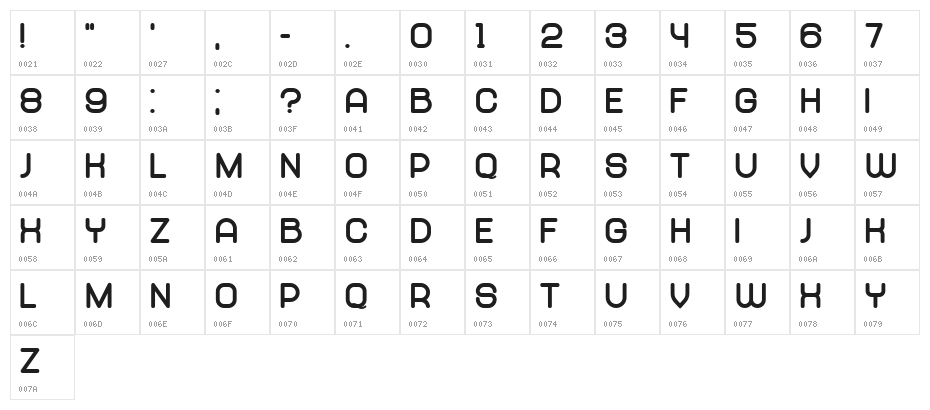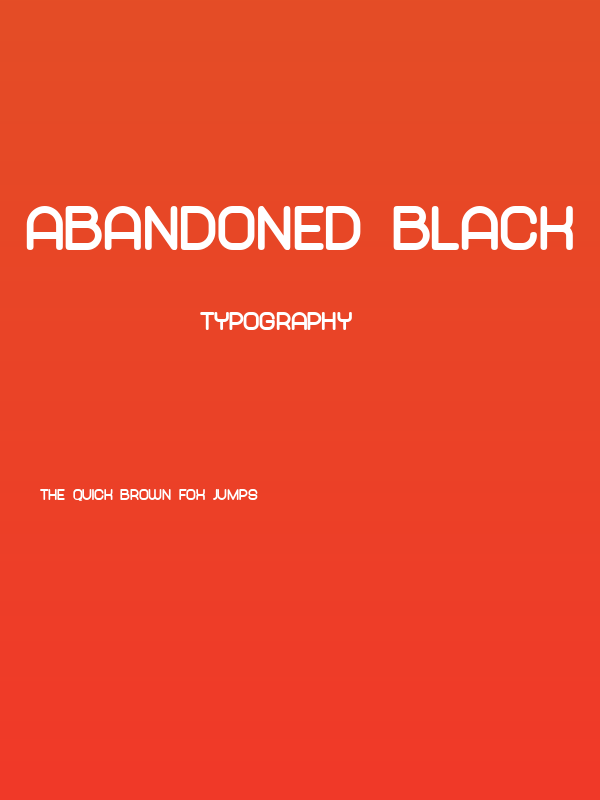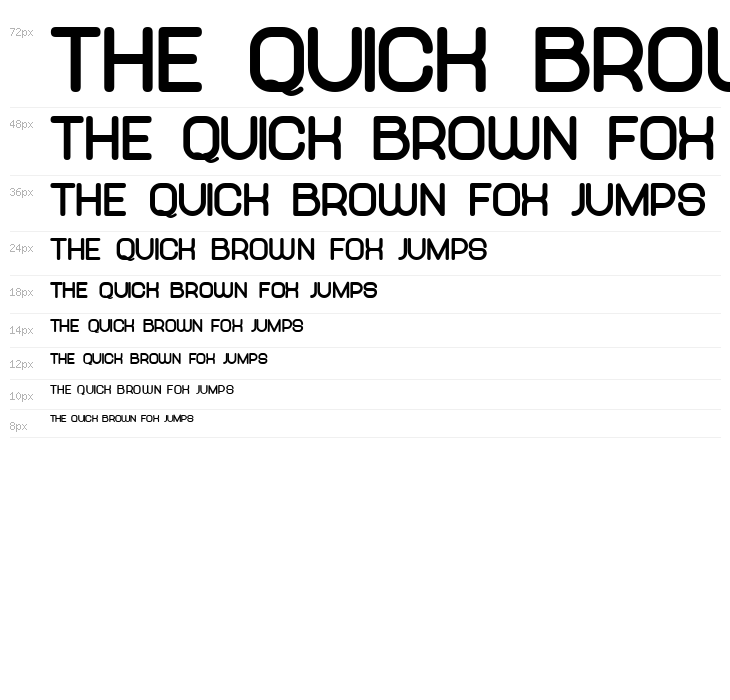
Abandoned Black Font
Abandoned Black Description
This font features a bold, rounded style with a modern and clean aesthetic. The characters are evenly spaced, providing a balanced and harmonious look. The uppercase letters are prominent and well-defined, while the lowercase letters maintain a consistent style that complements the uppercase. The numerals are clear and easy to read, making them suitable for various applications. The special characters are distinct and integrate seamlessly with the rest of the font. Overall, this font exudes a contemporary vibe, making it ideal for digital and print media.
| Use Case | Headlines, Logos, Digital media |
| Proposed Projects | Ideal for branding, digital media, advertising, and signage. |